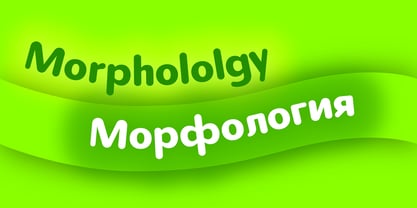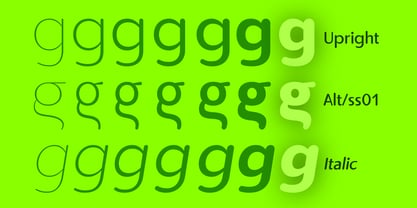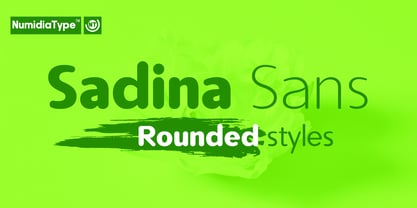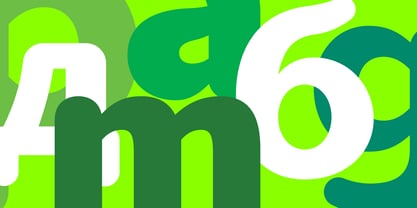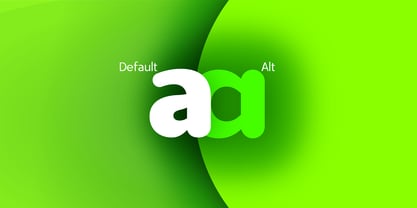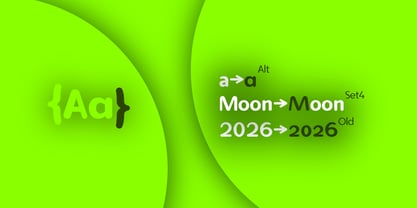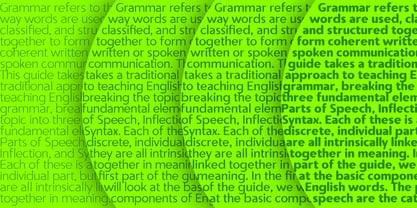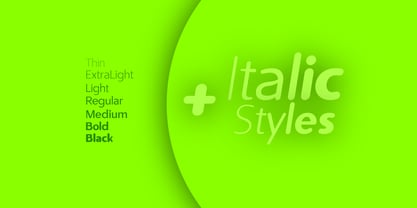
Sadina Rounded
The Sadina Rounded Font Family was designed by Yassine Abdi and published by NumidiaType. Sadina Rounded contains 14 styles and family package options. More about this family
Sadina™ Rounded is a friendly and approachable sans serif typeface that marries modern design with a touch of warmth. The font features smooth, rounded edges, making it both contemporary and inviting. With a versatile range of weights from thin to black, Sadina Rounded is perfect for everything from playful headlines to clean, legible body text. Its rounded character shapes add a unique softness, making it ideal for branding, user interfaces, and print design alike. This font isn't just about readability, it's about creating a connection with your audience through its gentle, yet professional appearance.